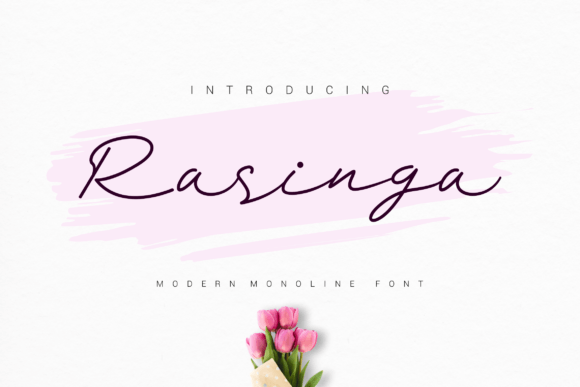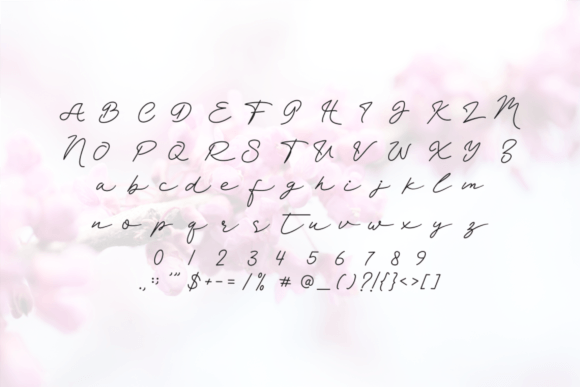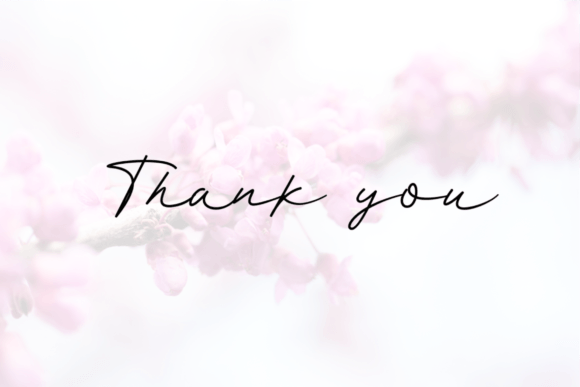
About Rasinga Font
“Rasinga is a modern, bold, and authentic script font that exudes confidence and originality. Tailored for various branding projects such as logos, t-shirt printing, exports, and more, this font is crafted to make a bold statement and look outstanding in a wide range of contexts.
The allure of Rasinga lies in its modern and bold script, where each letter carries a distinctive and authentic touch. This font serves as a powerful tool for branding endeavors, adding a contemporary and bold aesthetic to logos, apparel designs, and various creative applications.
Whether you’re establishing a strong brand identity or seeking a standout font for t-shirt prints, Rasinga stands out as a font that commands attention. Its modern and bold style ensures that your designs leave a lasting impact.
Imagine Rasinga enhancing your branding projects, infusing them with an authentic and bold touch. Its versatility becomes evident as it effortlessly complements different design elements, making your creations visually striking and memorable.
As you explore the nuances of Rasinga, you’ll discover its potential to transform ordinary projects into visual masterpieces. Let it be the font that adds a touch of modern boldness to your creative vision, making your designs stand out with a confident and authentic script aesthetic. With Rasinga, every stroke becomes a brushstroke of bold individuality, making it an invaluable asset for designers seeking a modern and authentic script font.”